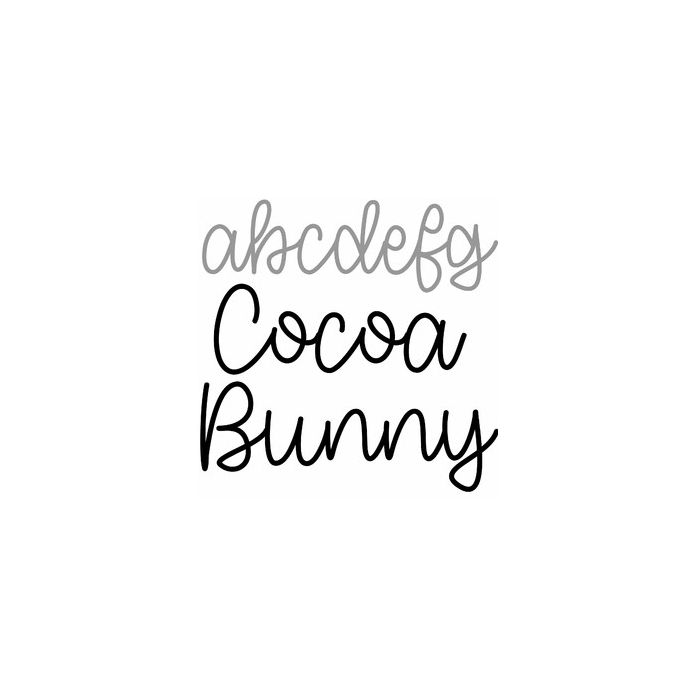
Cocoa Bunny is a cute handwriting script font for Easter crafts, Birthdays, cards, signs, monograms, and personalization projects. Includes alphabet, numbers, and punctuation.